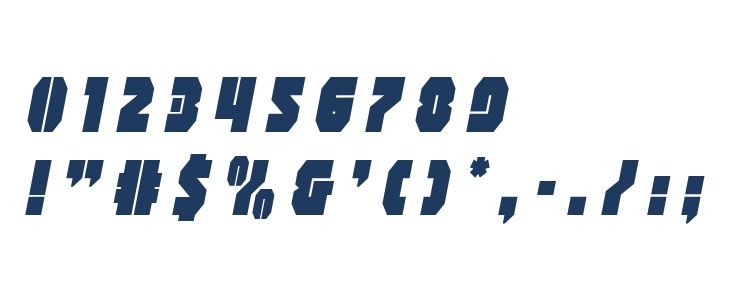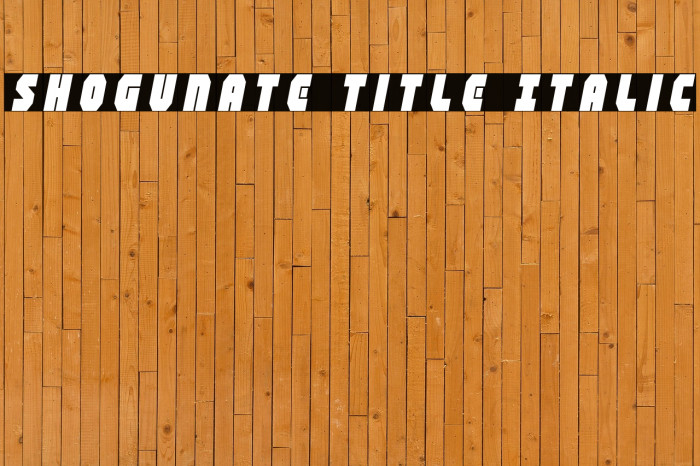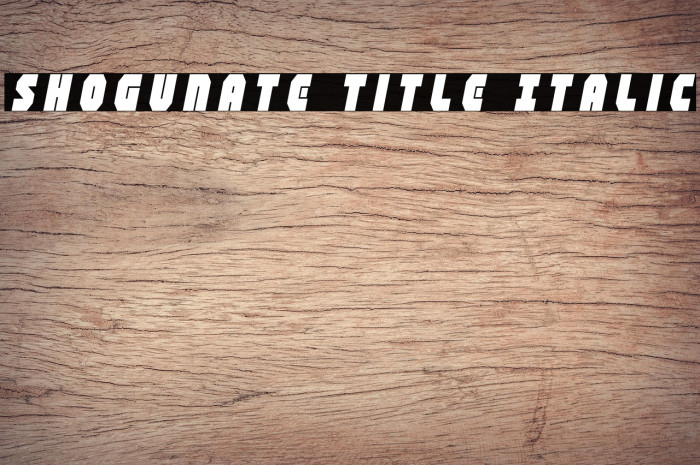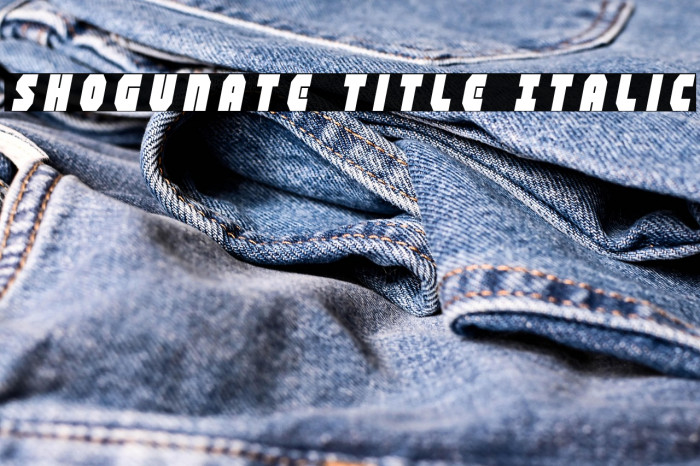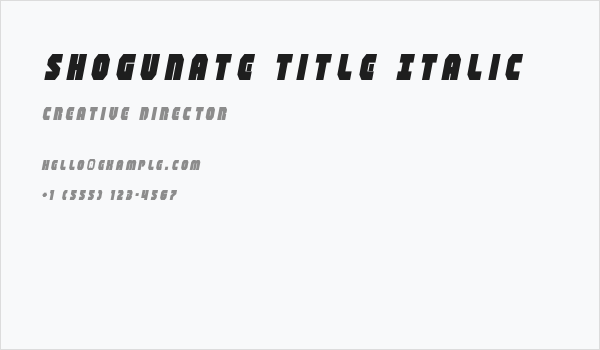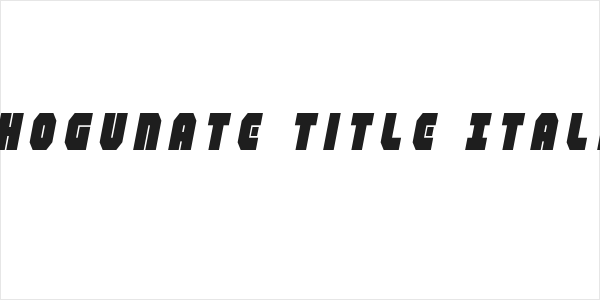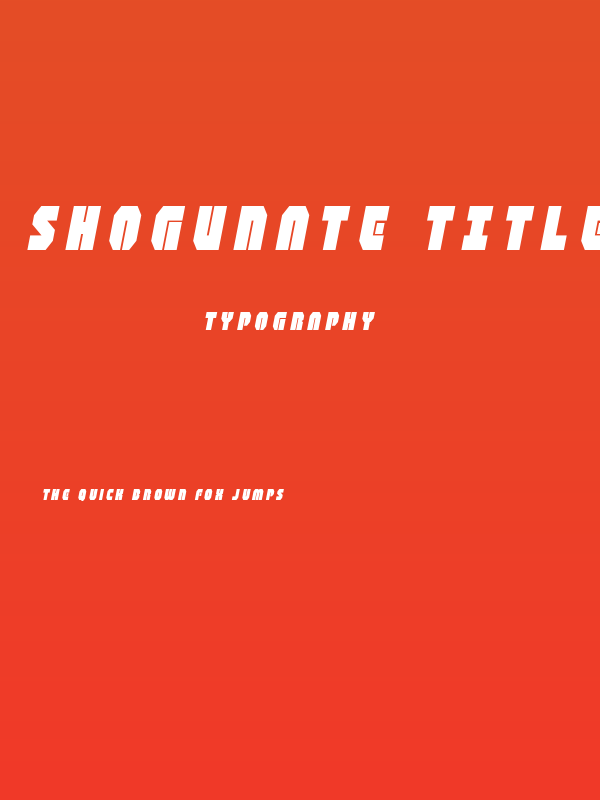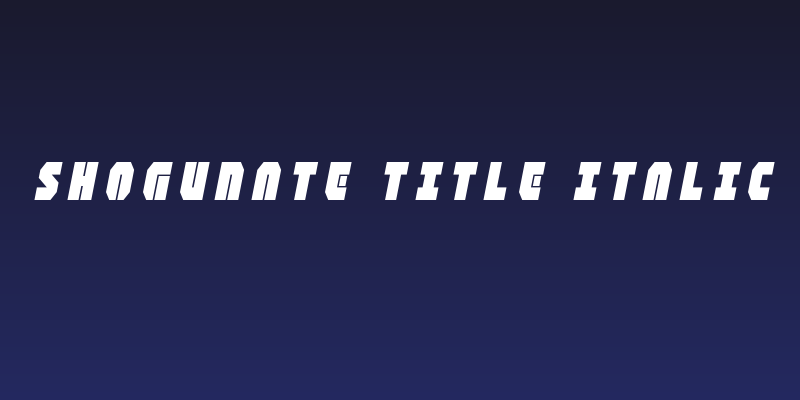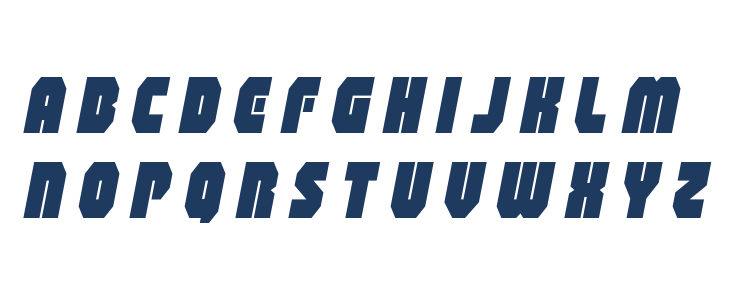
Shogunate Title Italic Font
Shogunate Title Italic Description
This font features a bold and angular design with a distinct italic slant, giving it a dynamic and modern appearance. The characters are constructed with sharp, geometric edges and a consistent stroke width, creating a strong visual impact. The uppercase and lowercase letters maintain a uniform style, while the numerals and special characters complement the overall aesthetic. The font's boldness and angularity make it suitable for attention-grabbing headlines or titles. Its unique style is reminiscent of futuristic or industrial themes, making it ideal for projects that require a modern and edgy look.
| Proposed Projects | Ideal for use in futuristic branding, video game titles, posters, and any project needing a bold, modern aesthetic. |